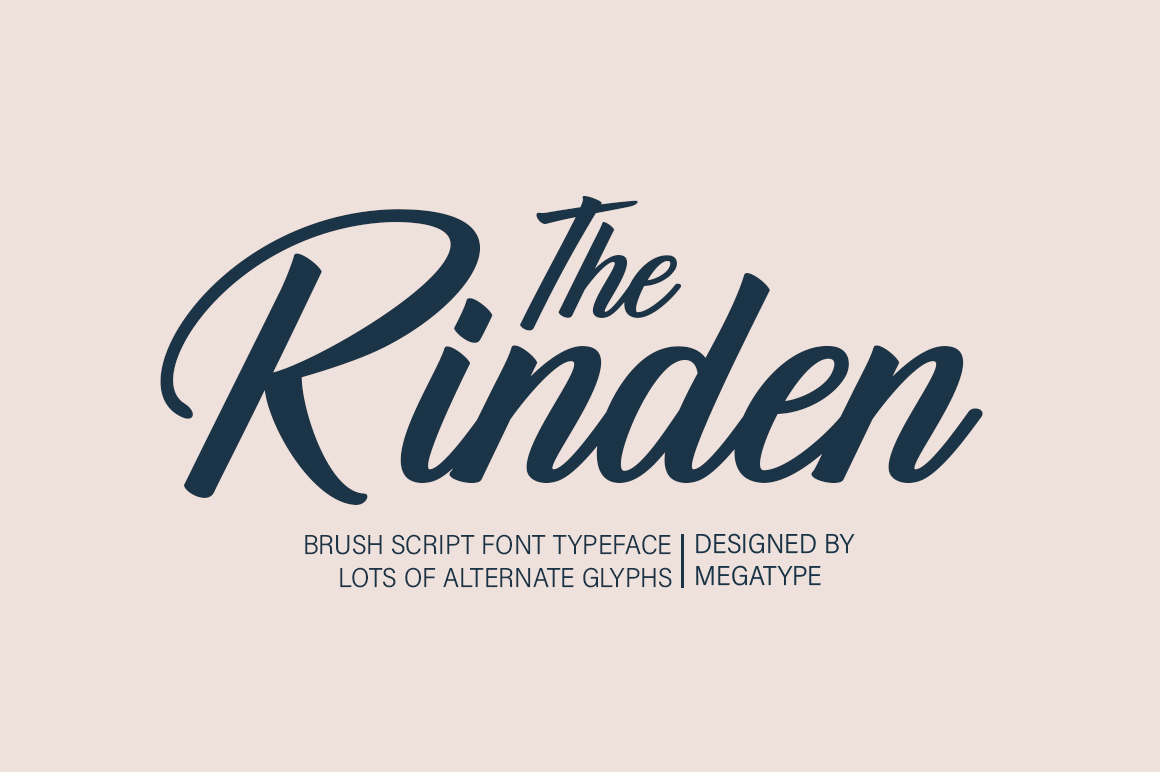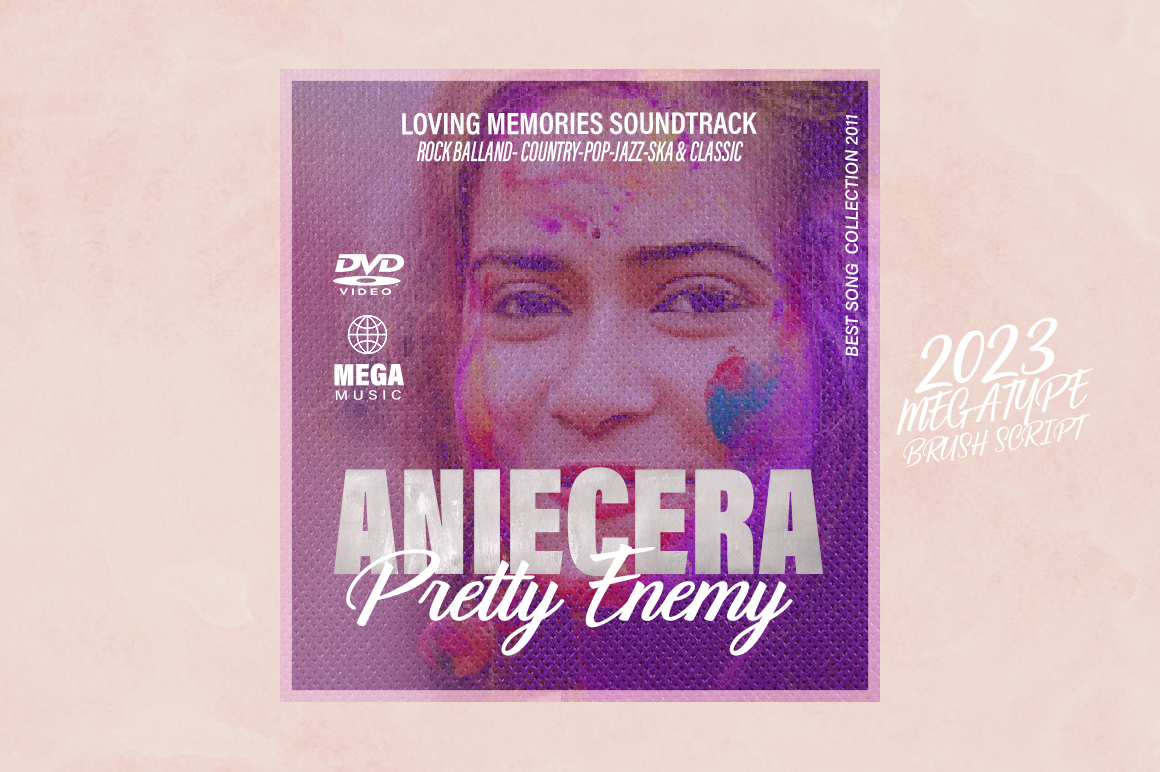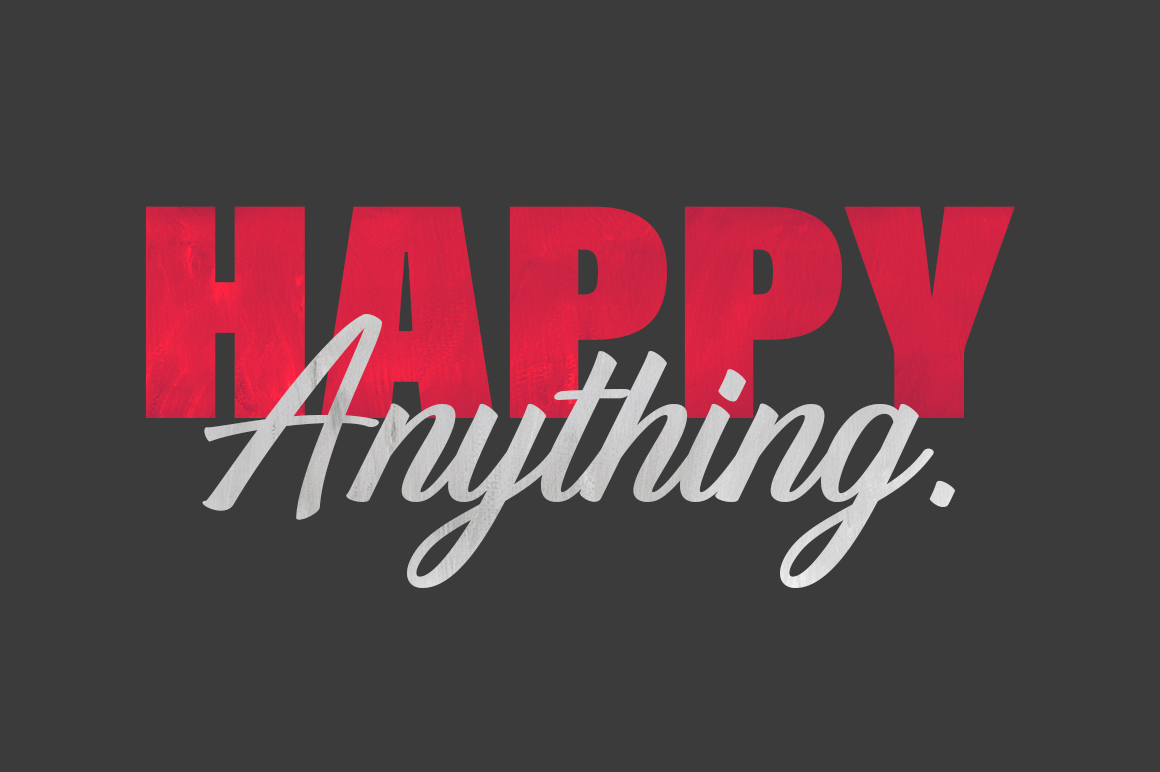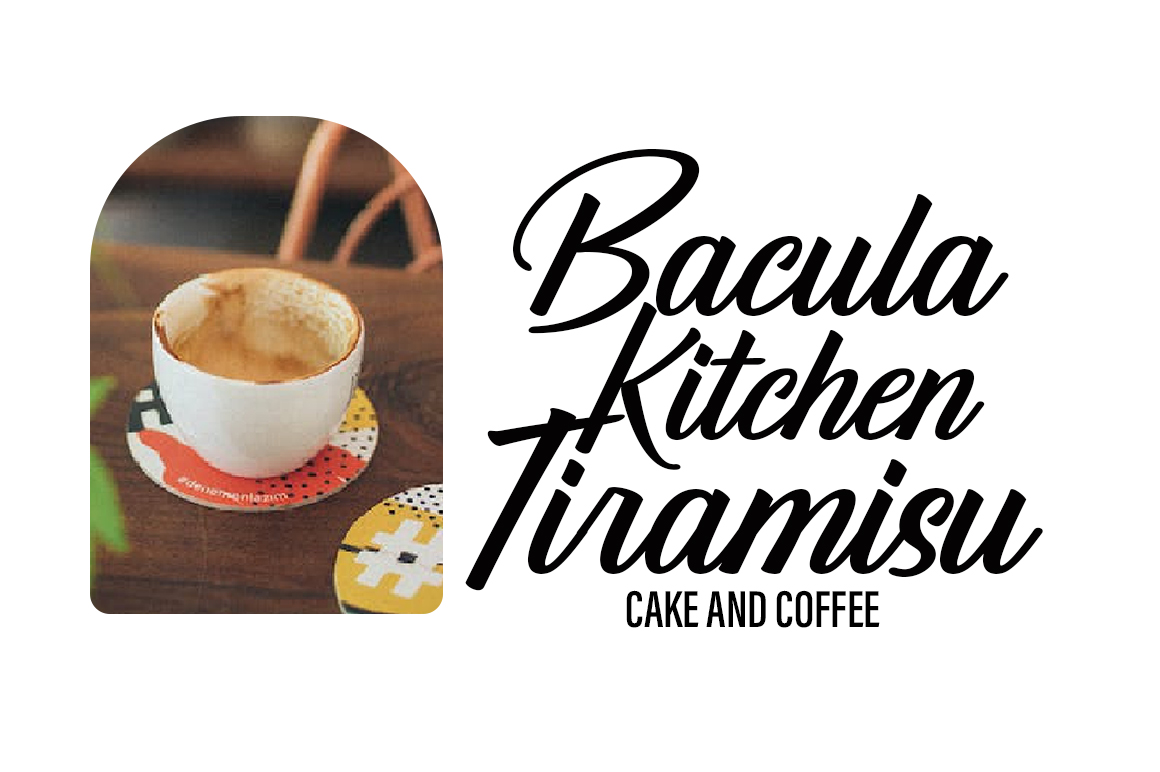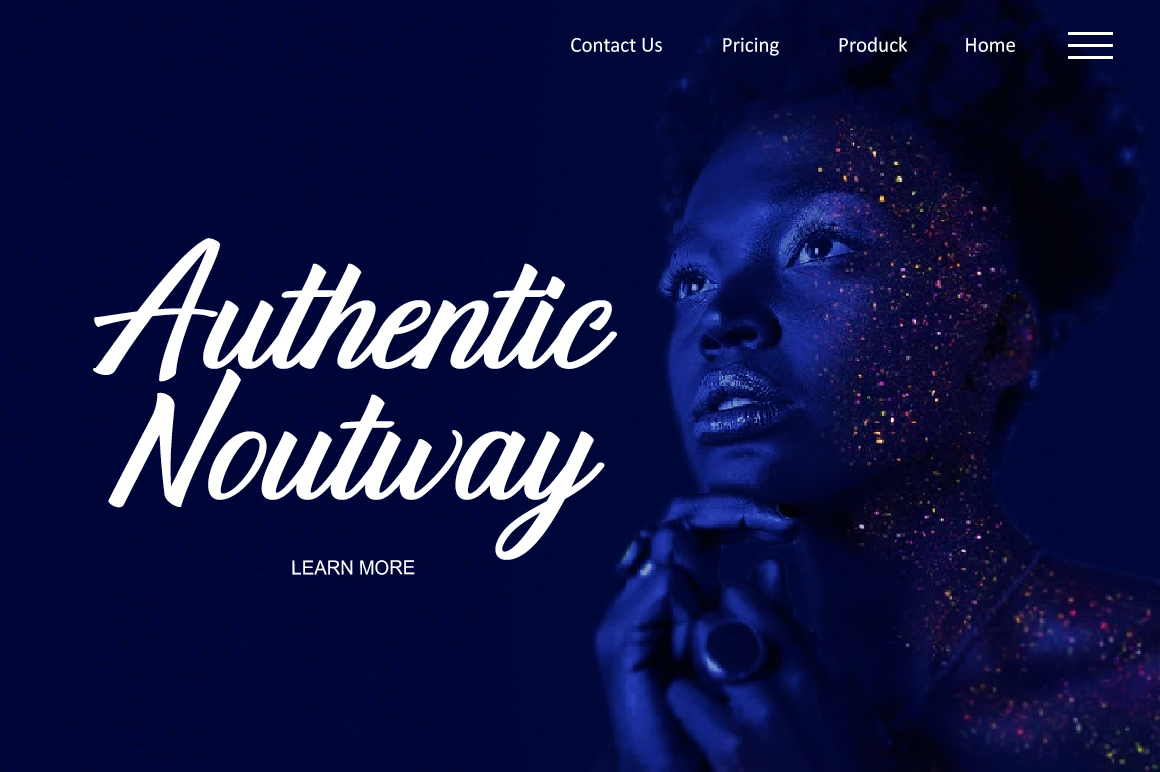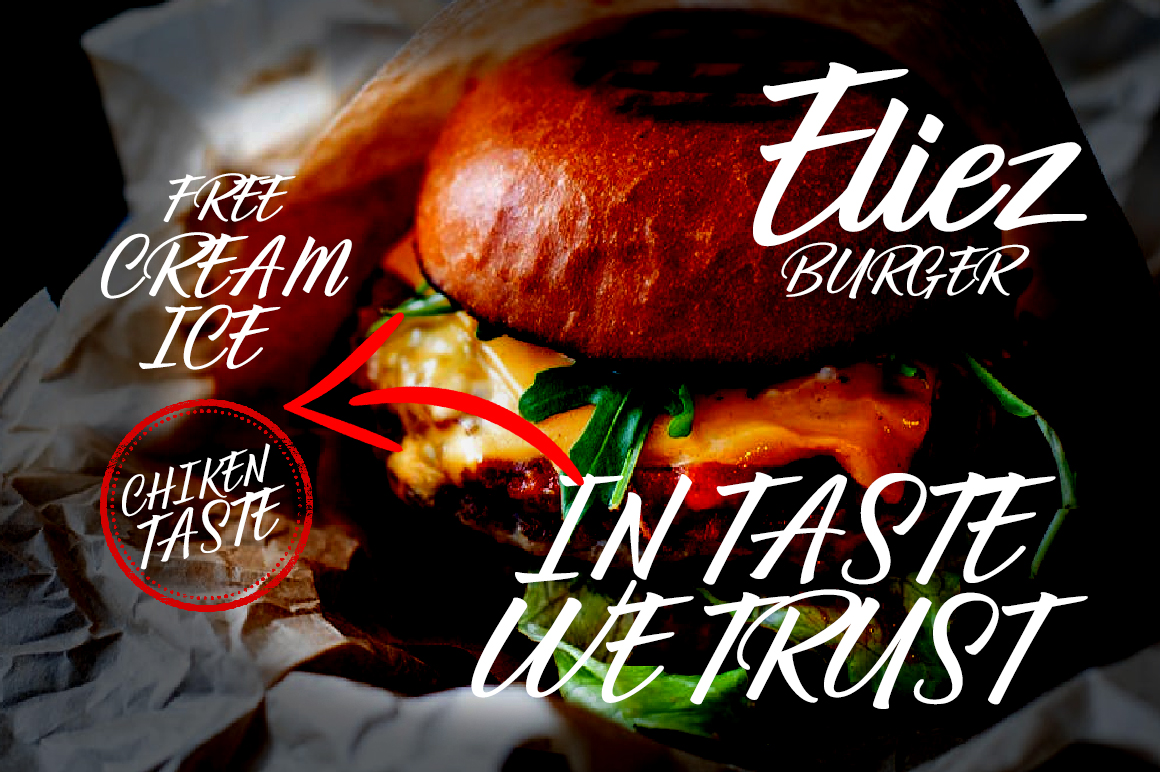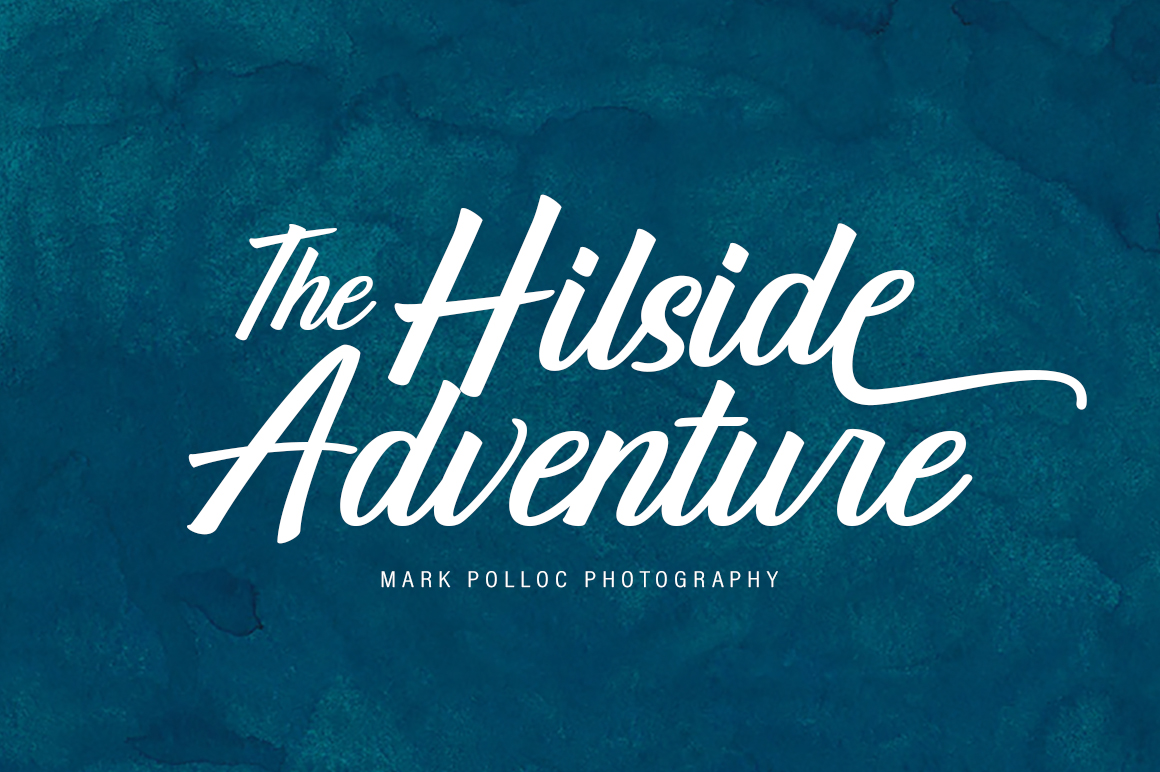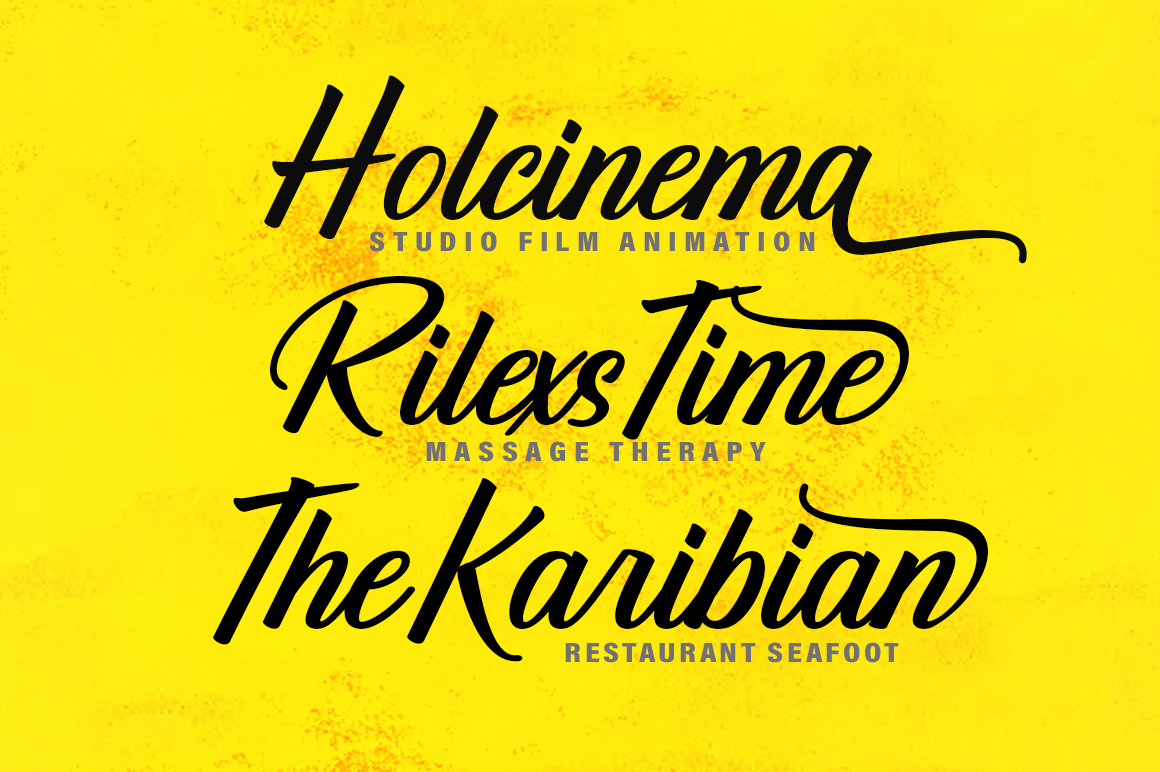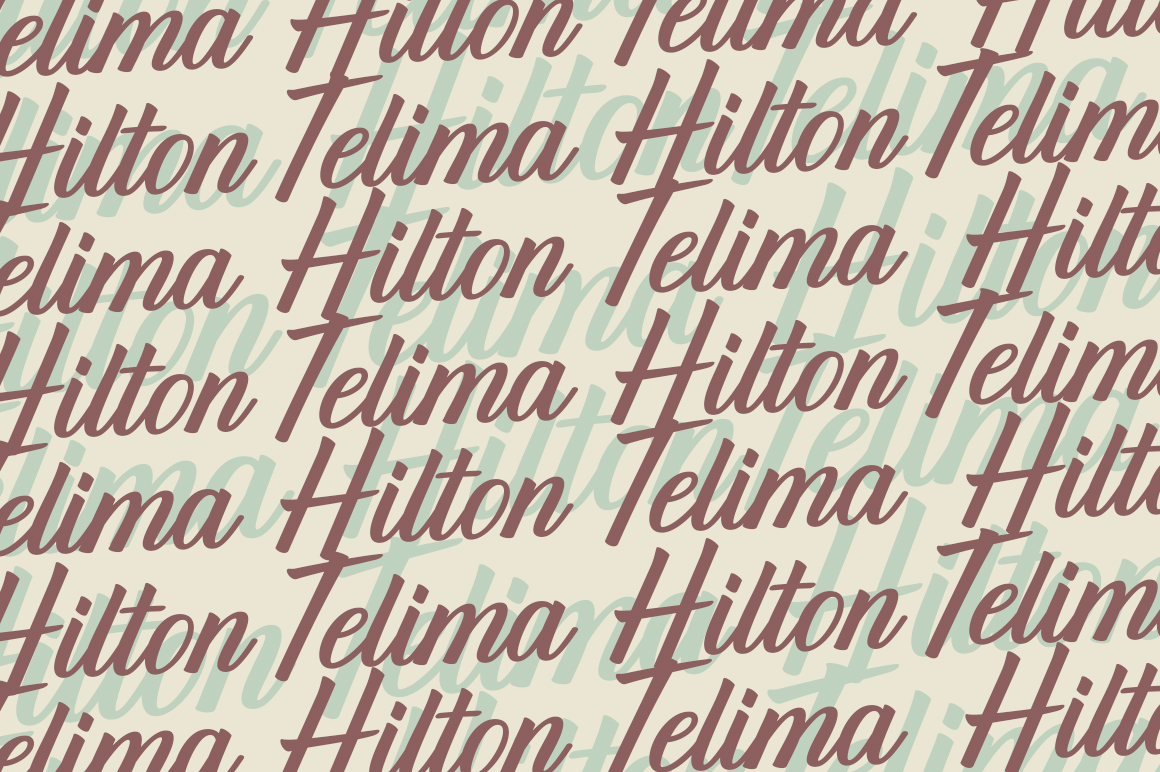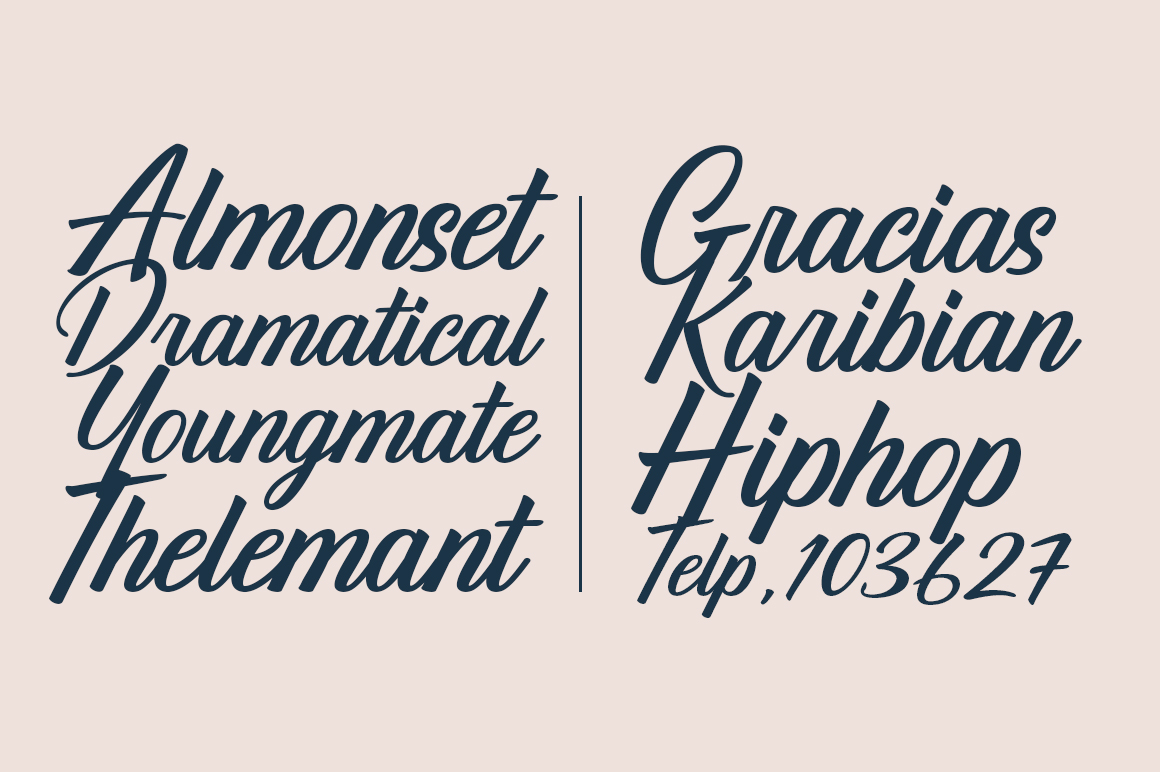
The Rinden is a modern brush script with a simple and classy style inspired by the vintage era when sign painting was considered a very important part of creating creative projects, storefront signage, branding and promotional advertisements on the street, The Rinden is made to resemble a brush painting to look natural and classy.
This font is great for your next creative project like branding, promotional ads, watermarks on photography, logo designs, signage, quotes, album covers, video covers, business cards and many more design projects. From business cards to photo watermarks, The Rinden is here to elevate your work to the highest level.